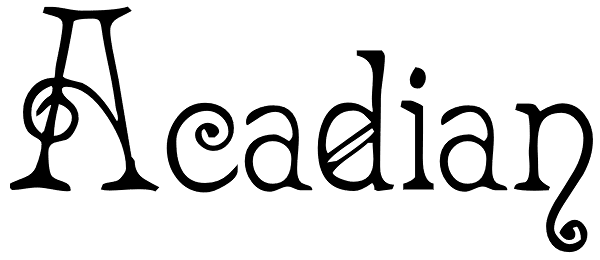
Acadian
A lovely decorative Victorian period font taken directly from samples printed on an old press right from the metal type in the collection of typophile Steve Saxe.
Acadian Font